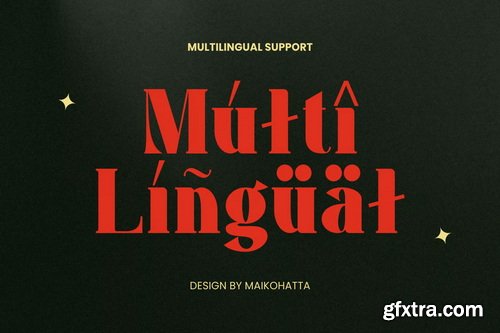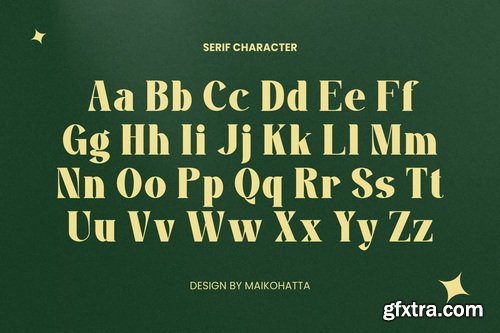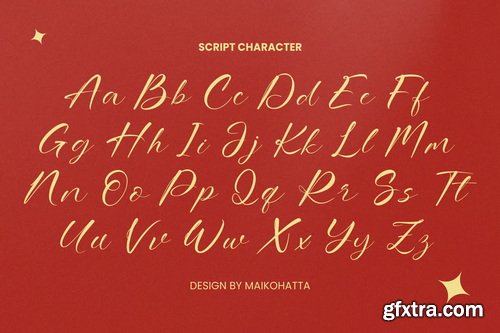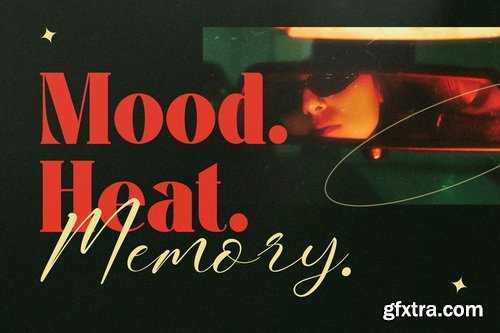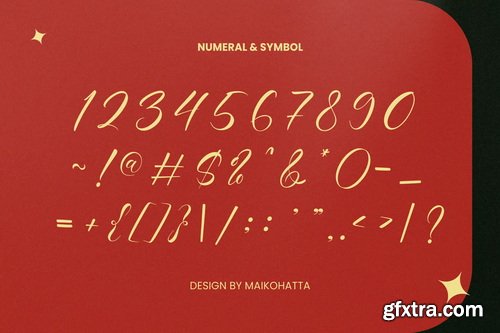
Quara Font Duo Typeface
- Introducing Quara, a stylish font duo that blends modern elegance with timeless character. Featuring a refined serif and a graceful script, Quara is designed to bring a harmonious balance of structure and flair to any creative project.
- Whether you're crafting a luxurious brand, designing editorial layouts, or creating romantic stationery, Quara offers the versatility and charm to make your message unforgettable.